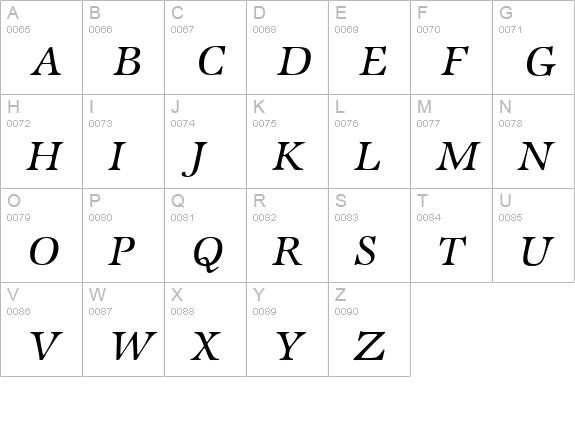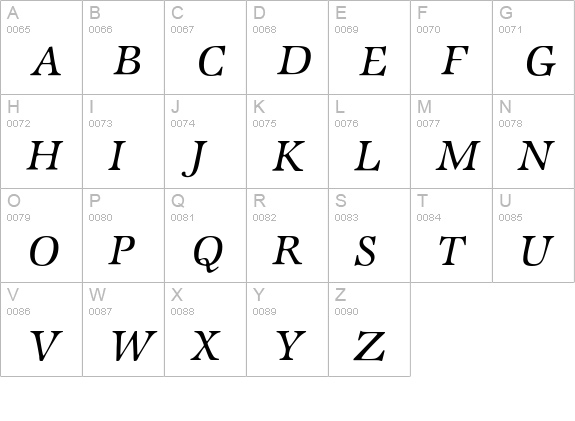
ZabriskieInternational-Italic is a distinctive, italic variant in the ZabriskieInternational typeface family \xE2\x80\x94 well suited to design and typography projects.
ZabriskieInternational-Italic is a stunning and elegant typeface that exudes sophistication and style. With its sleek and modern design, this font is perfect for adding a touch of class to any project. The italic style adds a unique flair to the text, making it stand out and capture the attention of the reader. The ZabriskieInternational-Italic font is versatile and can be used for various design purposes, including branding, editorial design, and more. Its clean lines and graceful curves make it a popular choice among designers looking to create a polished and professional look. And the best part? ZabriskieInternational-Italic is available for free download at FontsMarket.com. So you can easily add this elegant font to your collection without breaking the bank. Don't miss out on the opportunity to elevate your designs with the timeless beauty of ZabriskieInternational-Italic font. Download it now and start creating stunning visuals that leave a lasting impression.